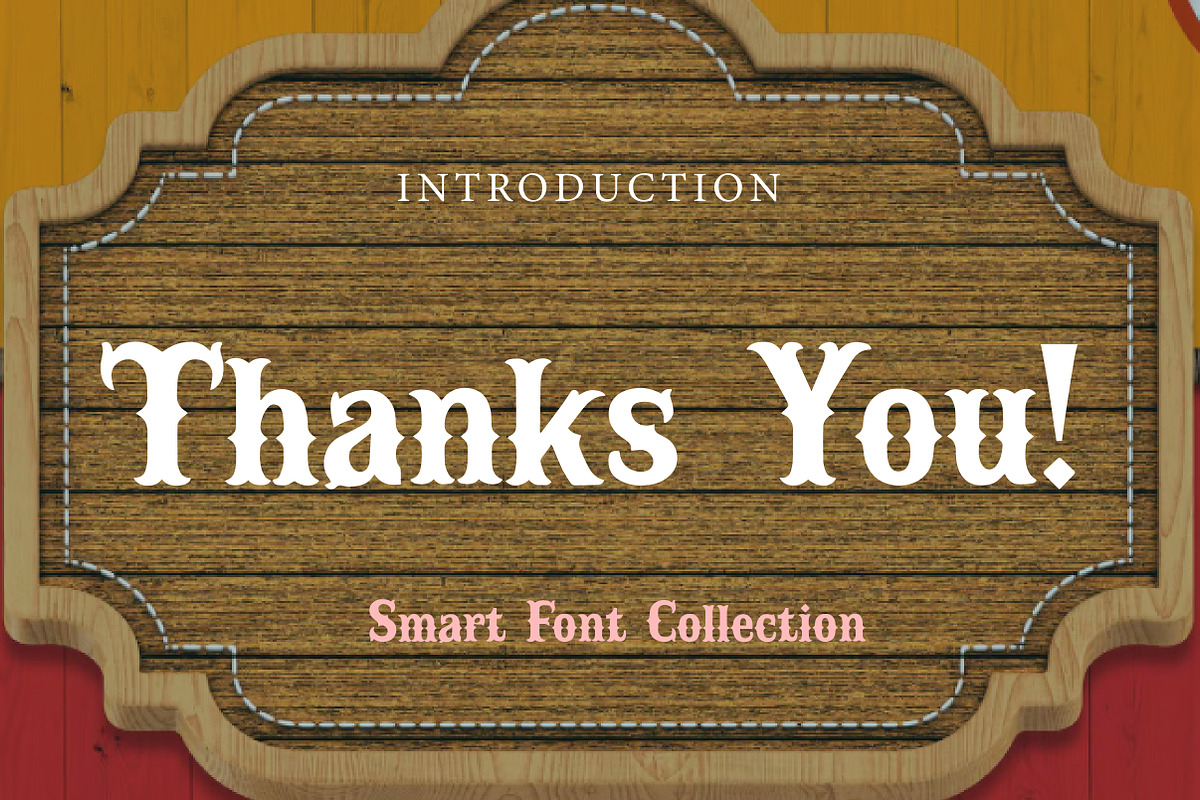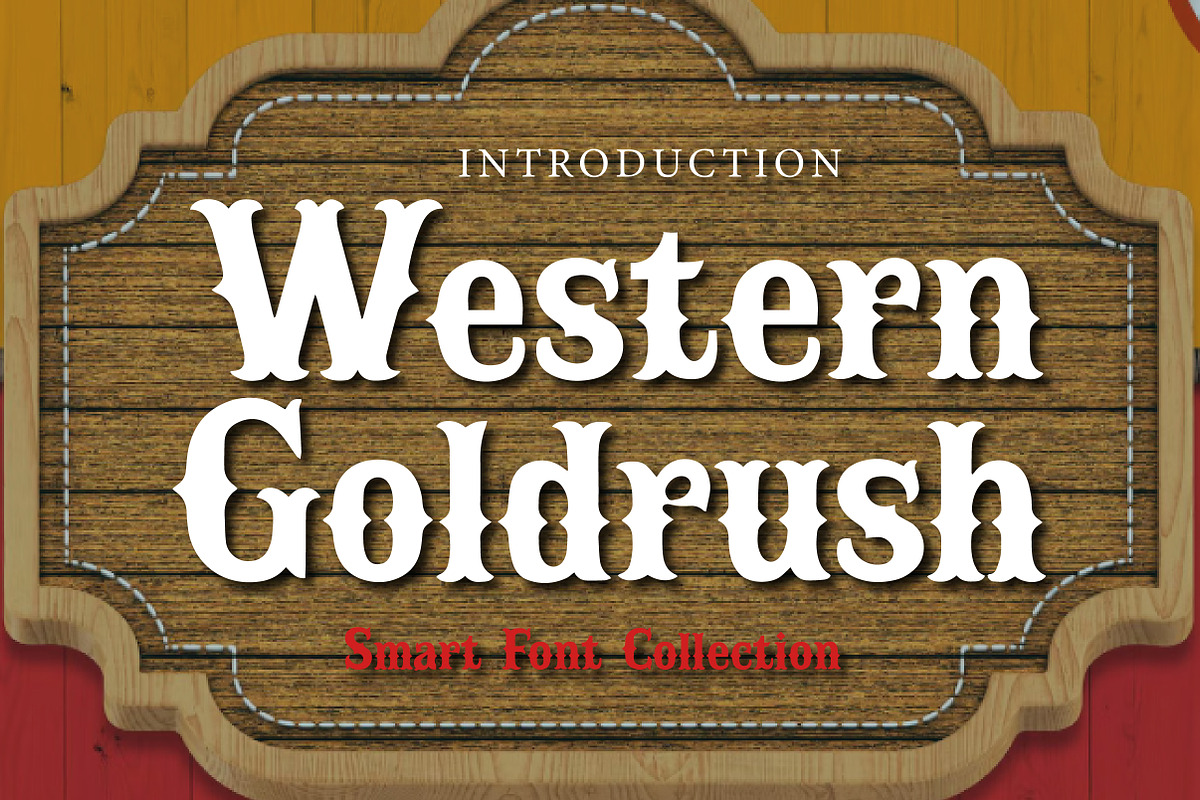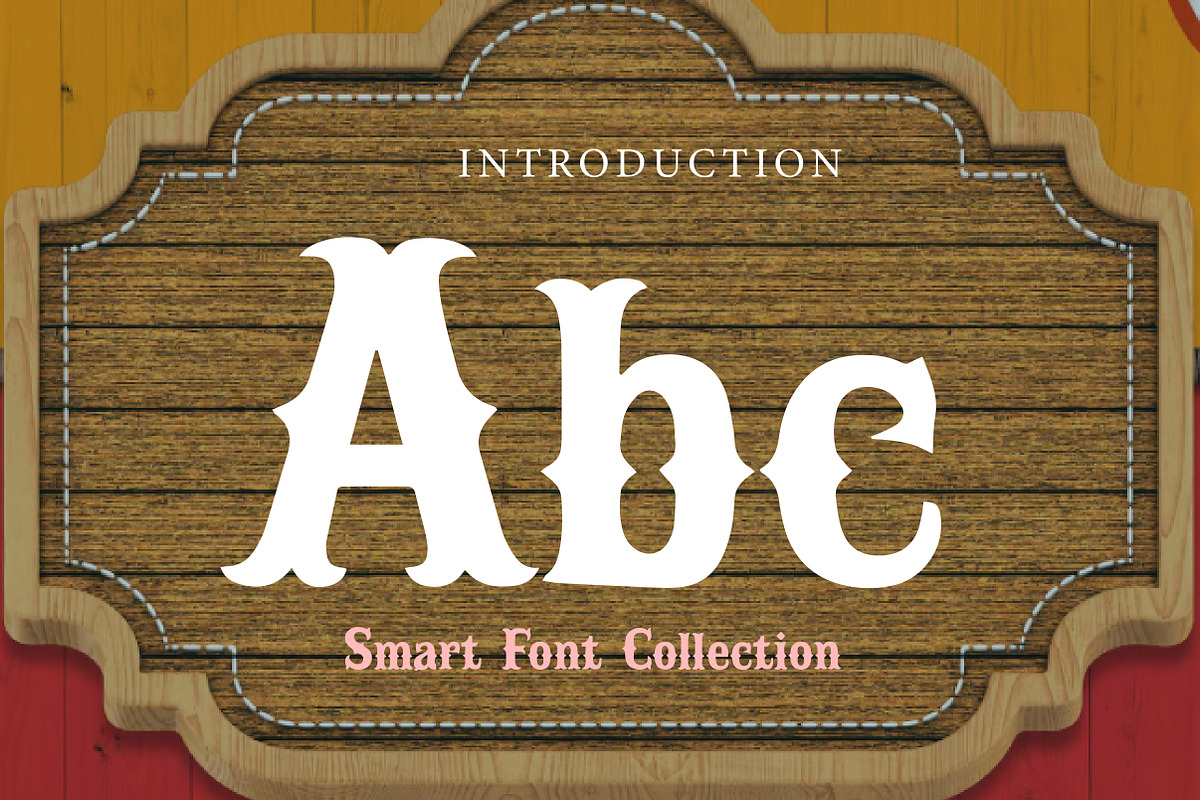
Western Goldrush
Western Goldrush is a bold vintage display font inspired by old western signage, frontier typography, and classic gold rush era aesthetics. With its decorative serif details, rugged character shapes, and nostalgic old-town presence, this typeface captures the spirit of the Wild West with a strong and memorable style.
The font blends traditional western influence with bold readability, making it perfect for posters, branding, packaging, logos, saloon-style graphics, book covers, apparel designs, and themed event promotions. Its distinctive letterforms add character, charm, and a rustic heritage feel to every design.
Western Goldrush is ideal for designers who want a typeface that feels authentic, bold, and rich with vintage western personality. Whether you're creating cowboy-inspired branding or retro Americana visuals, this font brings timeless frontier energy to your typography.